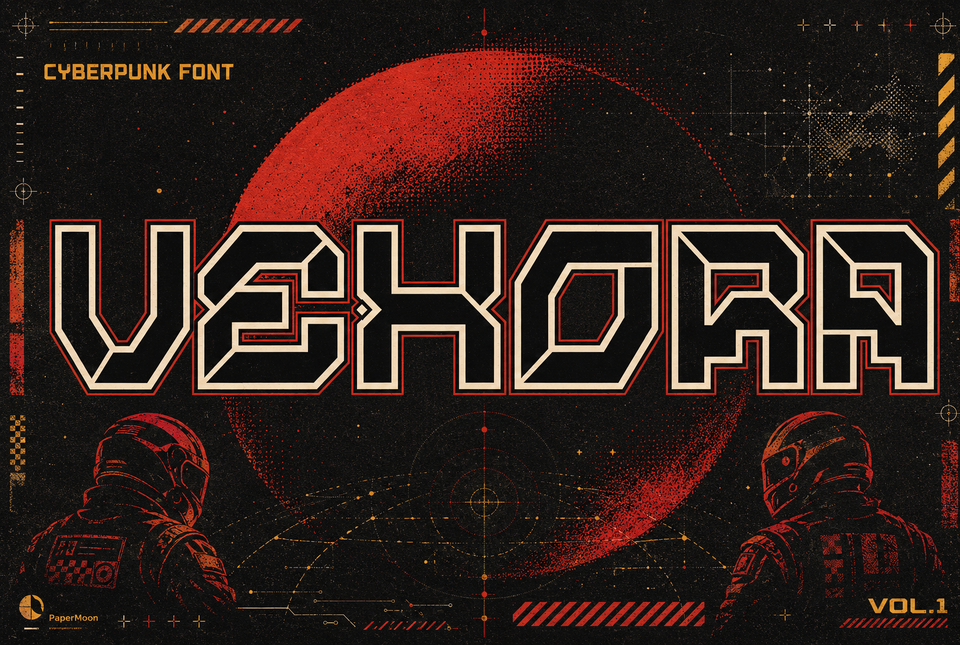
Vexora - Cyberpunk Display Font for Gaming and Tech
Vexora is a cyberpunk display font family for designers who need sharp, angular lettering with a segmented digital character. Its circuitry-inspired construction and electric-blue neon sci-fi direction give game titles, technology branding, posters, and interface graphics an engineered futuristic signal.
What it is: Vexora includes five coordinated styles: Regular, One, Two, Three, and Four. Regular provides the core display font treatment, while the numbered styles offer alternate visual directions for layered titles, contrasting words, and experimental cyberpunk compositions. Each style is documented with 212 glyphs covering uppercase, lowercase, numerals, and punctuation for basic Latin display work.
Key Features: The angular display lettering is designed for strong impact at headline sizes while remaining useful for logos, wordmarks, and prominent interface labels. Supported OpenType alternates and ligatures provide additional ways to customize selected characters and letter combinations in software with OpenType feature support. PUA encoding helps compatible applications access supported special characters. The five-style family can establish a consistent visual language across a game project, event identity, or technology campaign.
Applications: Use Vexora for game titles, sci-fi title cards, cyberpunk posters, technology event graphics, futuristic logos, tech branding, packaging, stickers, magazine covers, game interfaces, and cyberpunk merchandise. It also suits digital lettering for streaming graphics, promotional artwork, editorial headlines, and fictional technology identities. The display construction is intended for large text and focal words rather than long paragraphs.
Give your next sci-fi title, game interface, tech identity, or neon cyberpunk poster a stronger digital voice with Vexora.